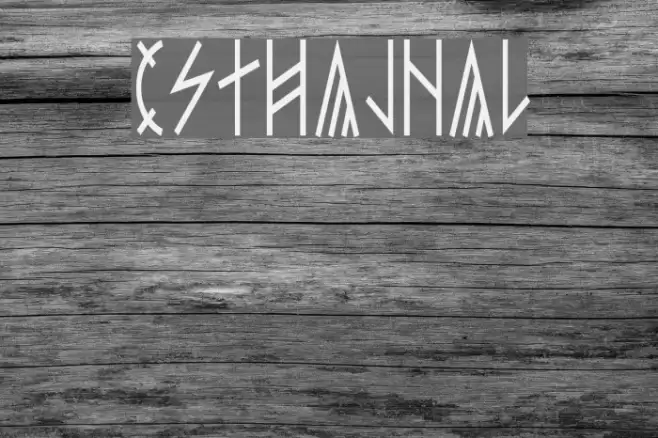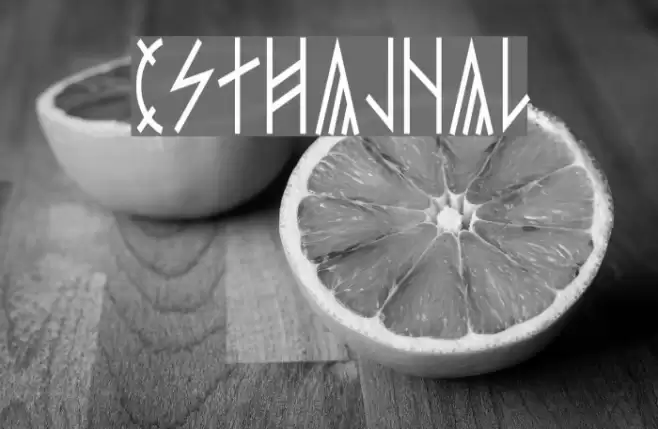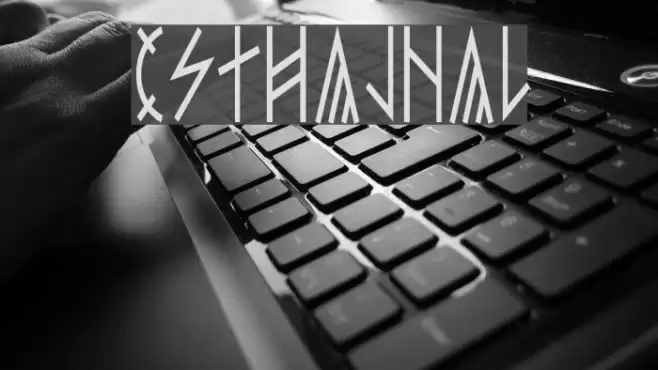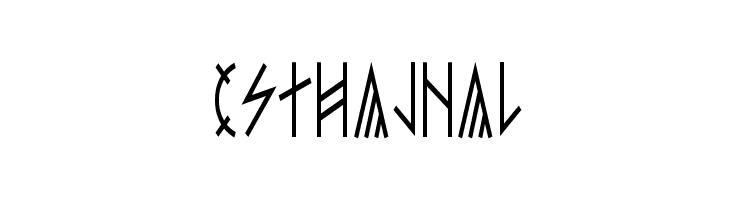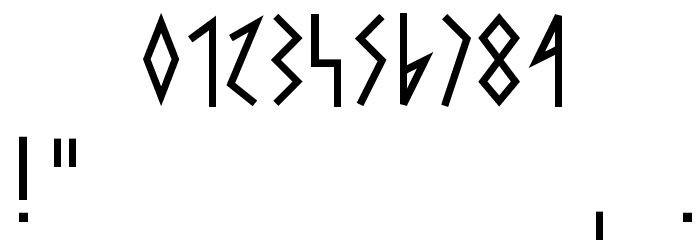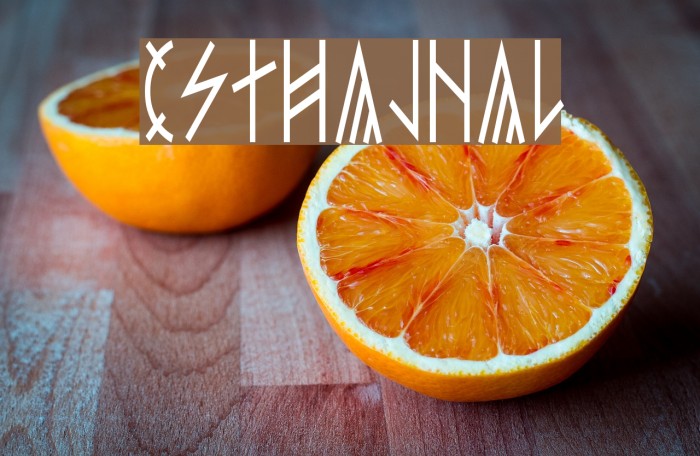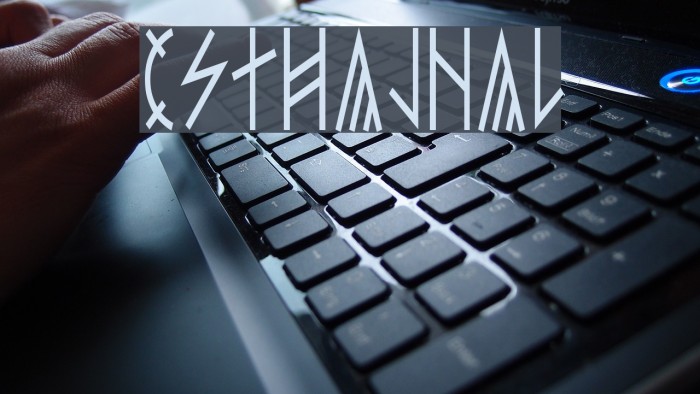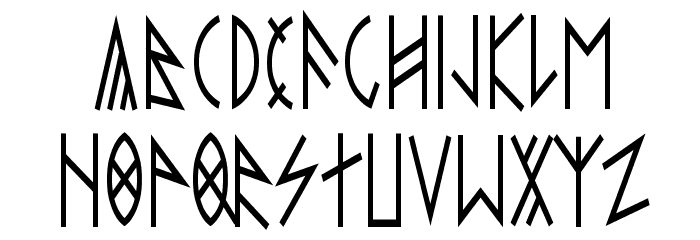
esthajnal Font
esthajnal Description
This font features a unique and edgy design, combining elements of ancient runes with a modern twist. The uppercase letters are characterized by sharp, angular lines and a distinct geometric structure, creating a sense of mystery and intrigue. The lowercase letters maintain a similar style, ensuring consistency throughout the typeface. The numbers are crafted with the same angular precision, making them stand out. Special characters are included, adding versatility to the font. Its bold appearance and high contrast make it ideal for projects that require a strong visual impact.
A bold, angular font inspired by ancient runes with a modern edge from Uncategorized fonts.
- Proposed Projects: Perfect for fantasy-themed designs, video game titles, movie posters, or branding for edgy and unconventional brands.